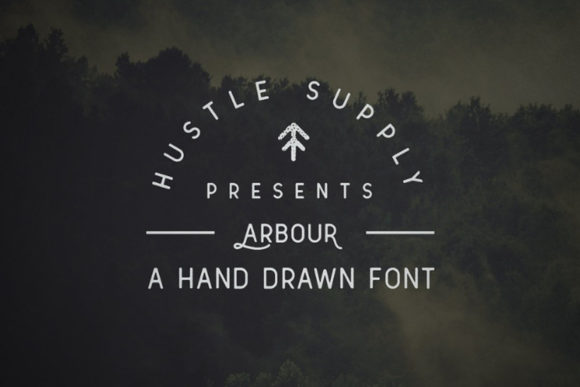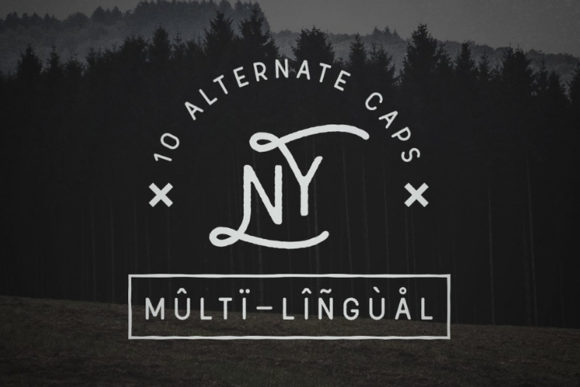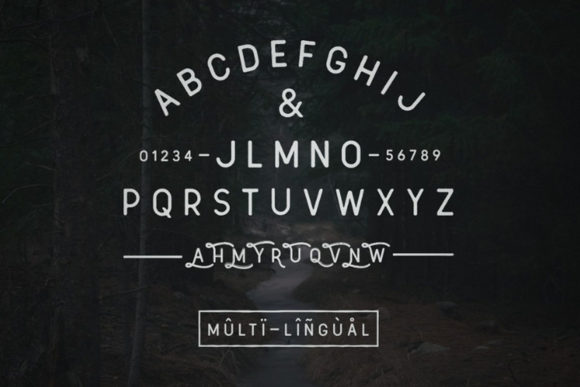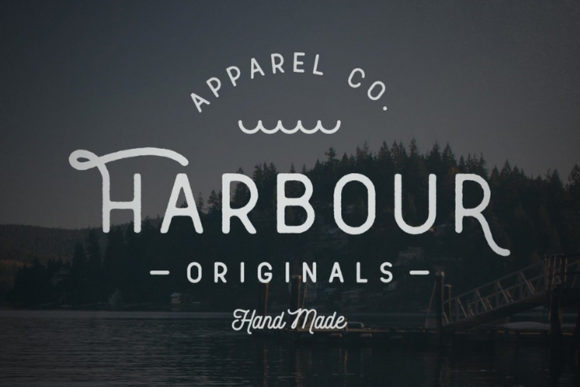
Discover the Elegance of Arbour Font: A Versatile Sans Serif for Modern Design
In the world of typography, few fonts manage to strike a balance between elegance and modernity. Arbour Font is one such exceptional typeface that simplifies elegance into a truly outstanding sans serif font. With its classy calligraphic influences and contemporary feel, Arbour offers a versatile solution for a wide range of design projects, from letterheads and titles to stationery and more.
The Essence of Arbour Font
Arbour Font is characterized by its clean lines, simple shapes, and a sophisticated aesthetic that appeals to designers and crafters alike. Its sans serif design ensures clarity and readability, making it an excellent choice for both digital and print media. The font’s design is deeply rooted in calligraphic traditions, yet it has been crafted to feel fresh and modern, allowing it to seamlessly integrate into contemporary design projects.
Key Features of Arbour Font
- Classy Calligraphic Influences: Arbour’s design is subtly influenced by calligraphy, giving it a unique elegance that sets it apart from more straightforward sans serif fonts.
- Contemporary and Fresh: Despite its calligraphic roots, Arbour maintains a modern feel that makes it suitable for a wide range of applications, from traditional stationery to cutting-edge digital designs.
- Versatility: One of Arbour’s most significant advantages is its versatility. It can be used for letterheads, titles, stationery, and any project that requires a touch of elegance and sophistication.
- Readability: The font’s clear and simple design ensures high readability, making it an excellent choice for body text as well as headings.
Applications of Arbour Font
Arbour’s unique blend of elegance and modernity makes it suitable for a variety of design projects. Here are some of the areas where Arbour can make a significant impact:
- Stationery and Letterheads: Add a touch of sophistication to your business correspondence with Arbour. Its elegant design makes it perfect for letterheads, invoices, and personal stationery.
- Titles and Headings: Use Arbour to create eye-catching titles and headings for your website, blog, or marketing materials. Its modern feel ensures it stands out in any context.
- Branding and Identity: For businesses looking to establish a strong brand identity, Arbour offers a classy and contemporary solution that can be used across various platforms.
- Digital Design: Whether you’re designing a website, mobile app, or digital marketing materials, Arbour’s clean and readable design ensures a great user experience.
Why Choose Arbour Font?
In a sea of typefaces, Arbour stands out for its unique combination of elegance, versatility, and modernity. Here are a few reasons why designers and crafters should consider Arbour for their next project:
- Unique Aesthetic: Arbour offers a distinctive look that can help your designs stand out. Its blend of calligraphic elegance and contemporary simplicity is hard to find in other fonts.
- Wide Range of Applications: From traditional print projects to modern digital designs, Arbour’s versatility ensures it can be used in a wide range of applications.
- Easy to Read: Despite its elegant design, Arbour remains highly readable, making it suitable for both headings and body text.
Arbour Font is a remarkable typeface that brings a perfect balance of elegance and modernity to the world of sans serif fonts. Its calligraphic influences, combined with a fresh and contemporary feel, make it an excellent choice for designers and crafters looking to add a touch of sophistication to their projects. Whether you’re working on stationery, titles, or digital designs, Arbour offers the versatility and aesthetic appeal needed to create truly outstanding work.
With Arbour, you can simplify elegance into a font that not only looks great but also enhances the readability and impact of your designs. If you’re looking for a typeface that can elevate your projects and leave a lasting impression, Arbour Font is undoubtedly worth exploring.